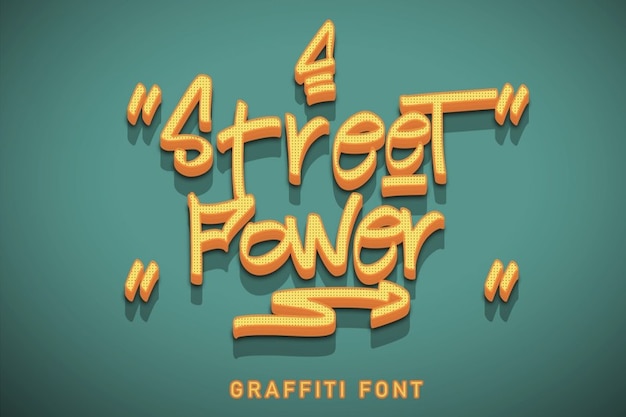
Street Power Font
"Street Power" font exudes the raw energy and defiance of urban graffiti culture, embodying the spirit of the ghetto streets. With bold strokes and an edgy style, it captures the essence of rebellion and creativity. Perfect for injecting urban attitude into designs, commanding attention with its dynamic presence.
Street Power Regular (400)
Street Power Alternate (400)